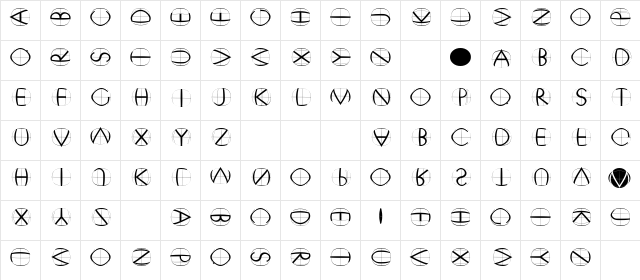
XperimentypoFourB Round
Design Context for XperimentypoFourB Typeface
XperimentypoFourB softens its letterforms with rounded terminals, giving it an approachable, friendly quality that works well in consumer-facing and digital contexts.
A natural fit for tech startups, health and wellness brands, children's products, and friendly consumer apps.
Font Pairing: Pairs well with a rounded or humanist sans for body copy, maintaining the friendly tone without relying on XperimentypoFourB to carry extended reading.
Pro Tip: Pair XperimentypoFourB with a geometric sans for a balanced system — the rounded softness works as a warm counterpoint to harder-edged companions.